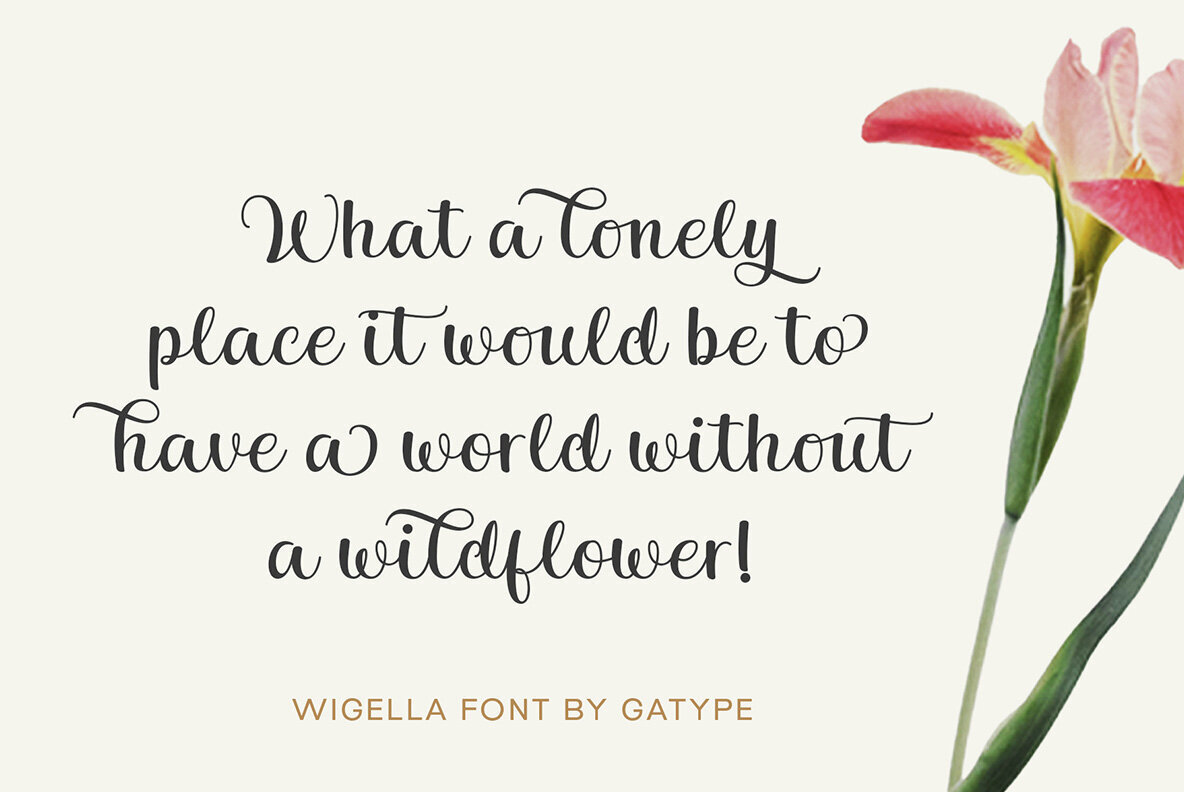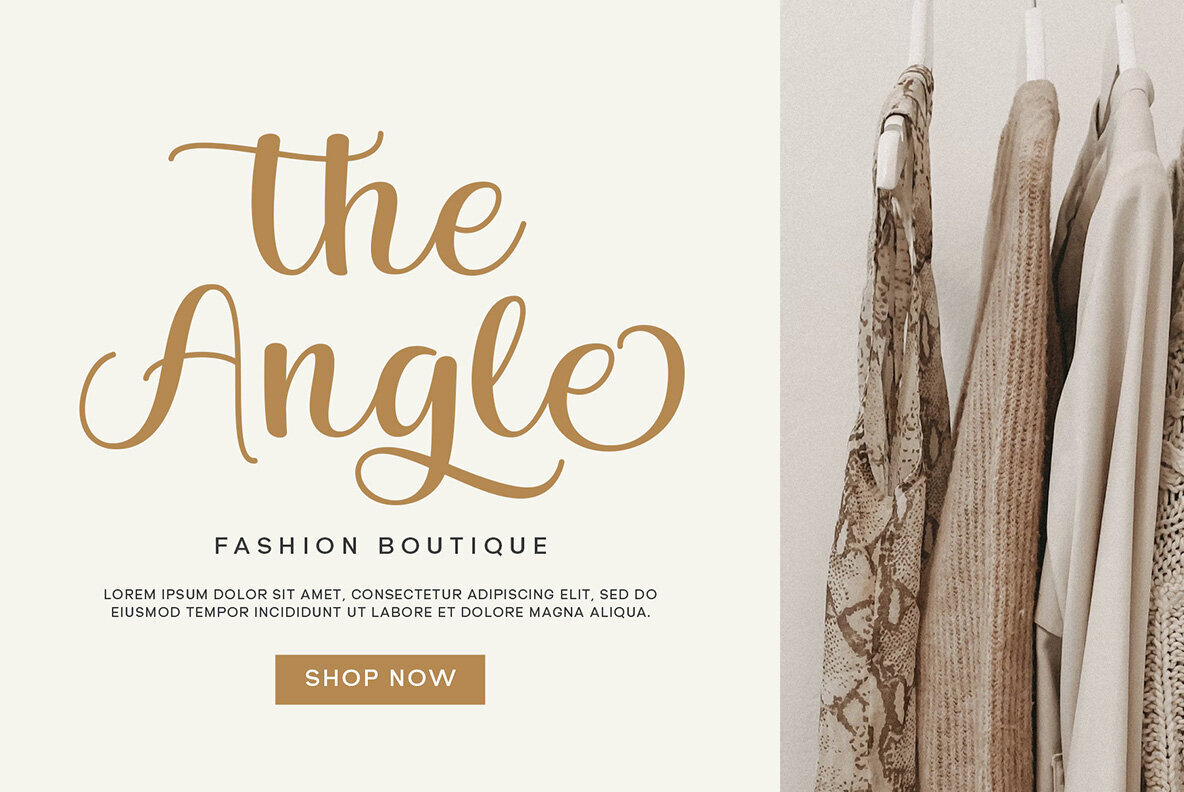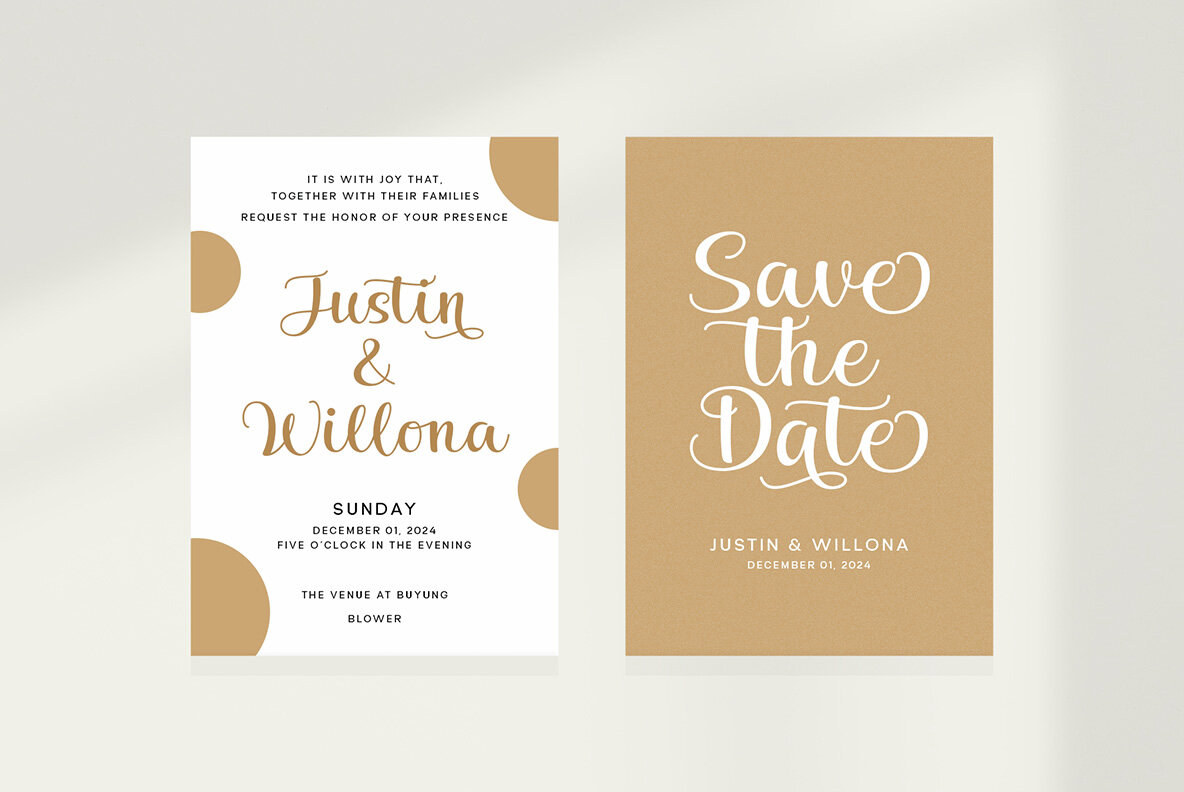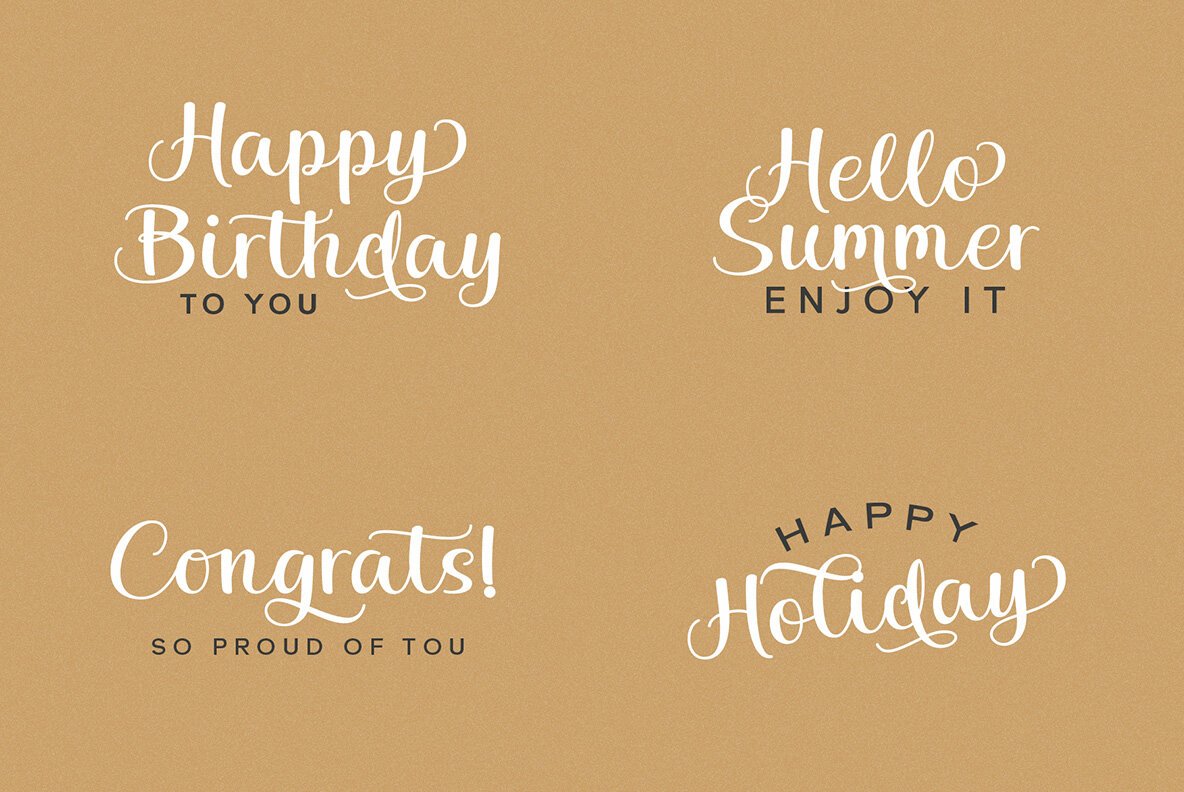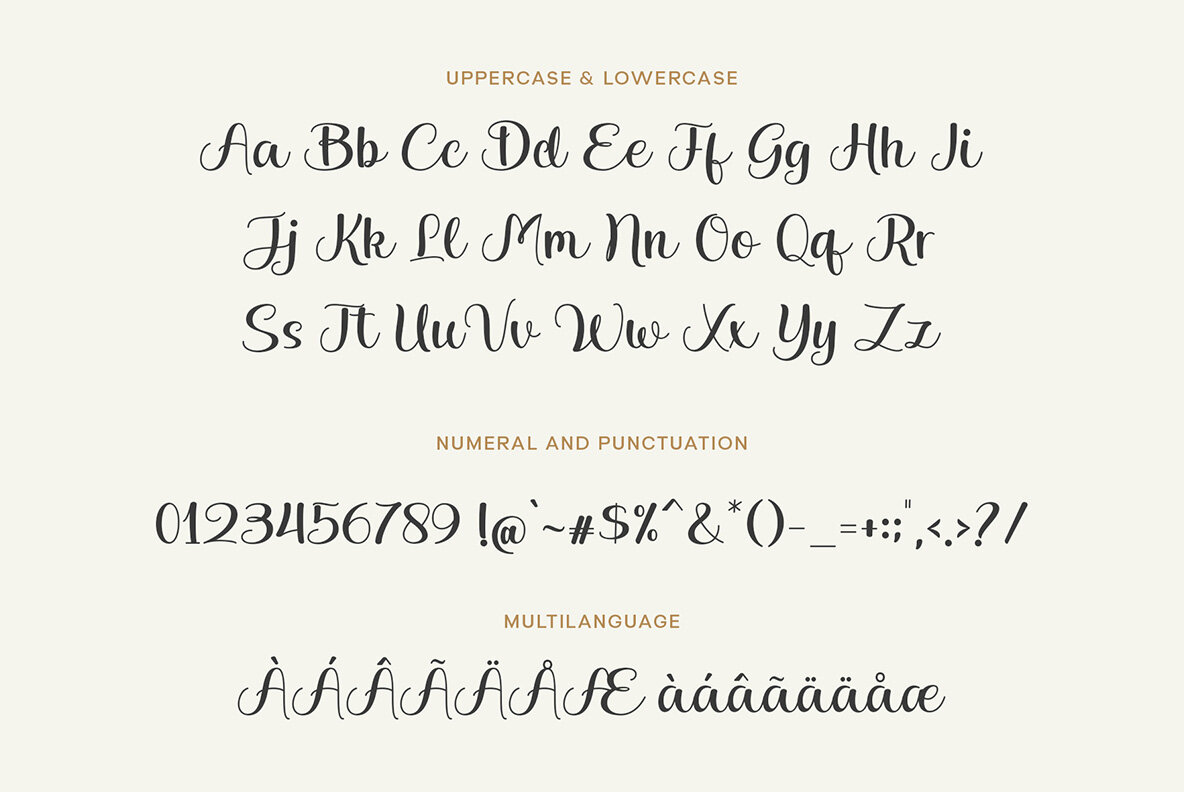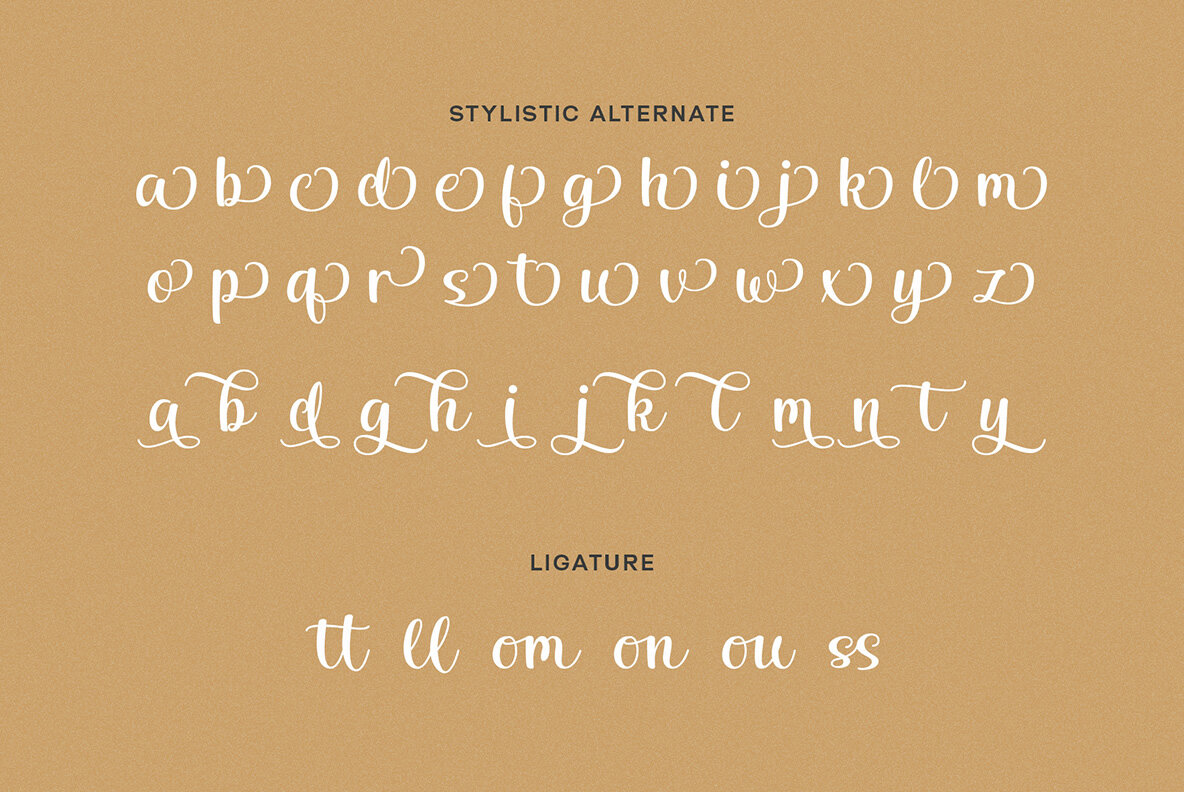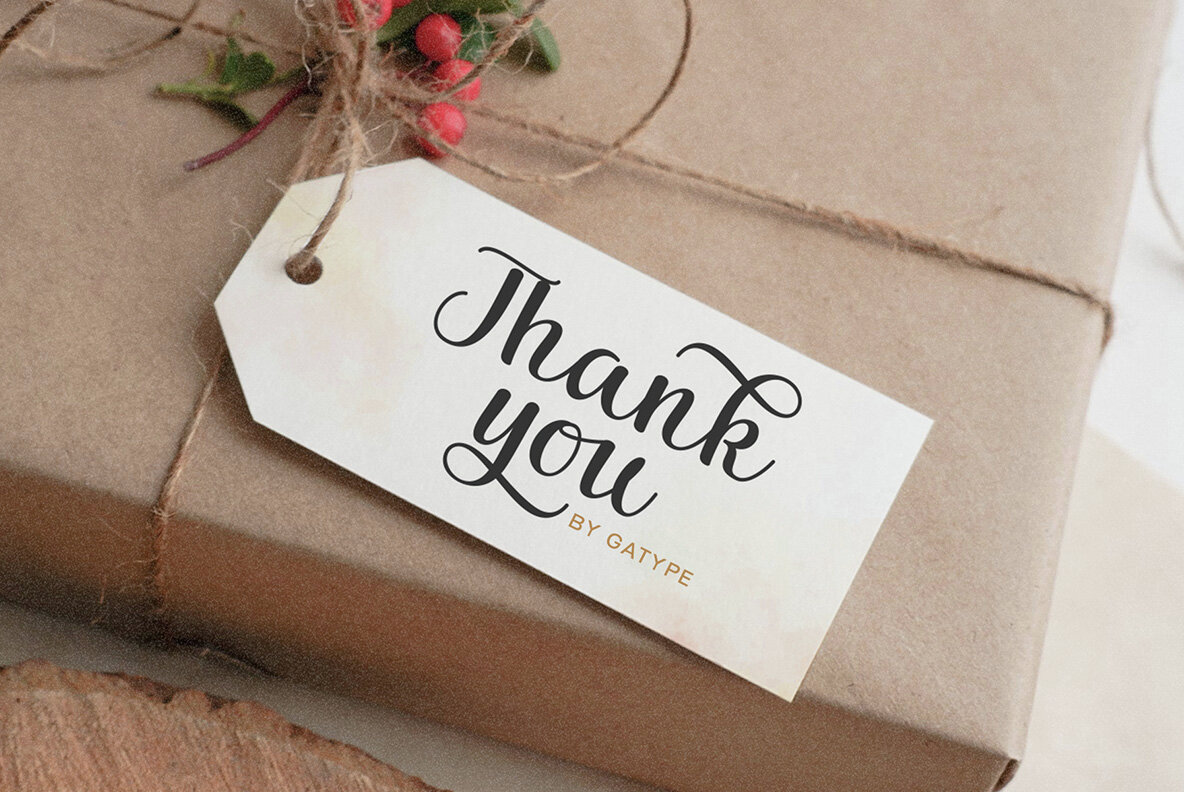
Wigella Font
Wigella Regular
Wigella is a sophisticated script font that embodies elegance and style, ideal for projects needing a feminine, romantic, or artistic flair. Featuring smooth, curved handwritten characters enhanced by classic accents, Wigella offers a natural flow that exudes friendliness and aesthetic charm.
Perfect for wedding invitations, greeting cards, logo designs, and more, Wigella imparts a warm, graceful, and personal touch to any project. Its ability to create a lasting impression makes it a popular choice for creatives seeking to inspire with their design.